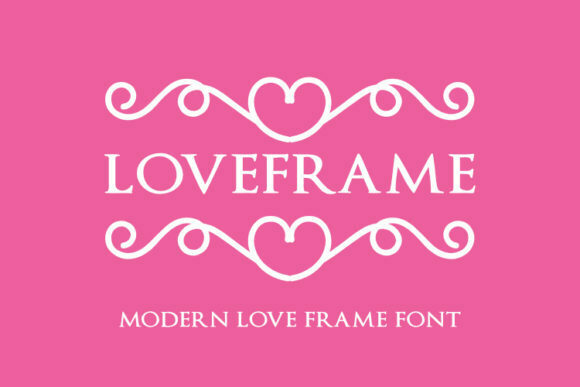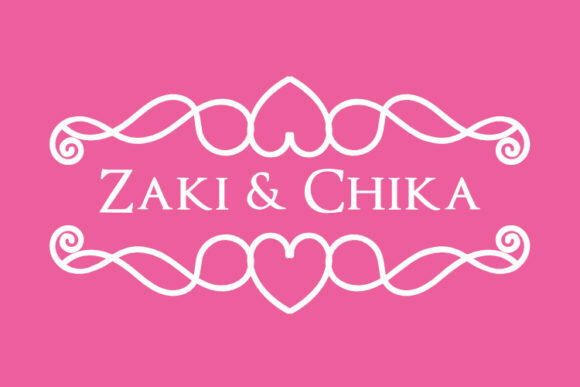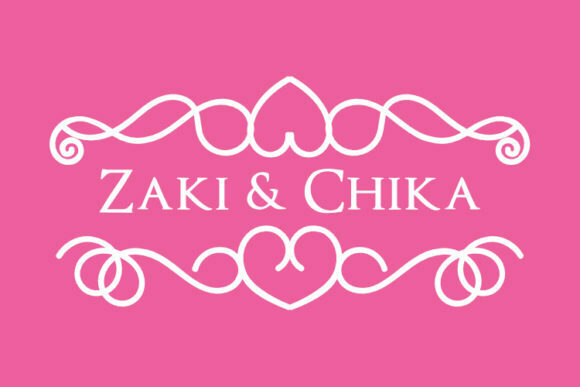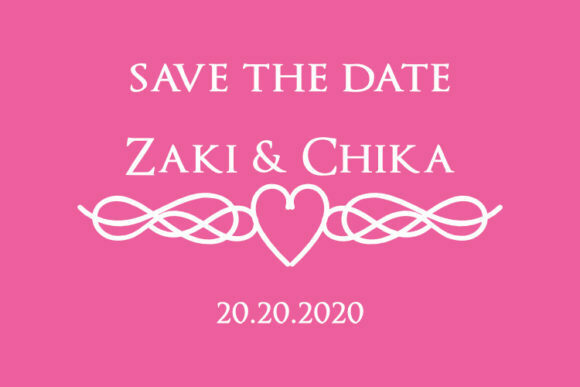
Loveframe Font
About Loveframe Font
Loveframe sounds like a beautiful and romantic dingbats font! With its two different versions, it offers versatility and creative opportunities to design stunning frames. Here are some ideas on how to make the most of Loveframe and create amazing frames:
1. Photo Frames: Use Loveframe to create charming and romantic frames for your favorite photos. Whether it’s a wedding picture, a couple’s portrait, or a cherished memory, the intricate and elegant designs of Loveframe will add a special touch to your photographs.
2. Wedding Invitations: Design unique and enchanting wedding invitations using Loveframe. Incorporate the romantic frames as borders or decorative elements around the text, creating an invitation that captures the essence of love and celebration.
3. Love Letters and Cards: Add a touch of romance to your love letters or greeting cards by using Loveframe to frame your heartfelt messages. The delicate and ornate designs of the font will enhance the sentiment and make your words even more special.
4. Digital Designs: Utilize Loveframe in your digital designs, such as social media graphics or digital collages. Create visually appealing frames for quotes, announcements, or showcase your favorite images. The versatile options of Loveframe will bring elegance and charm to your digital creations.
5. Scrapbooking and Memory Keeping: Enhance your scrapbook pages or memory keeping projects by incorporating Loveframe as decorative frames around photos, journaling, or memorabilia. The intricate details of the font will beautifully frame and highlight your cherished memories.
6. Art Prints and Wall Decor: Print and frame Loveframe designs as standalone art pieces or as part of a gallery wall. The romantic and elegant frames will add a touch of sophistication to your home decor, creating a romantic atmosphere.
Remember to explore different color combinations, layering techniques, and experiment with the two versions of Loveframe to create unique and personalized frames. Let your creativity guide you as you design stunning frames using the beauty and versatility of Loveframe. Enjoy the process of adding a romantic and artistic touch to your projects!